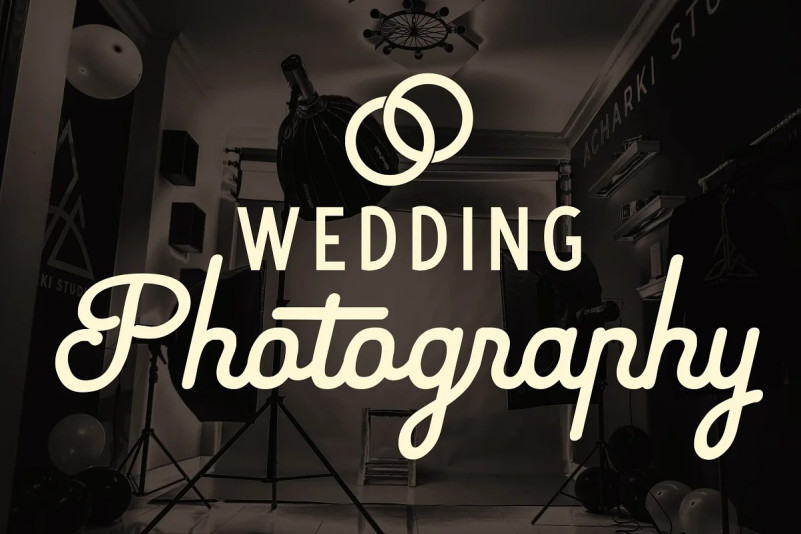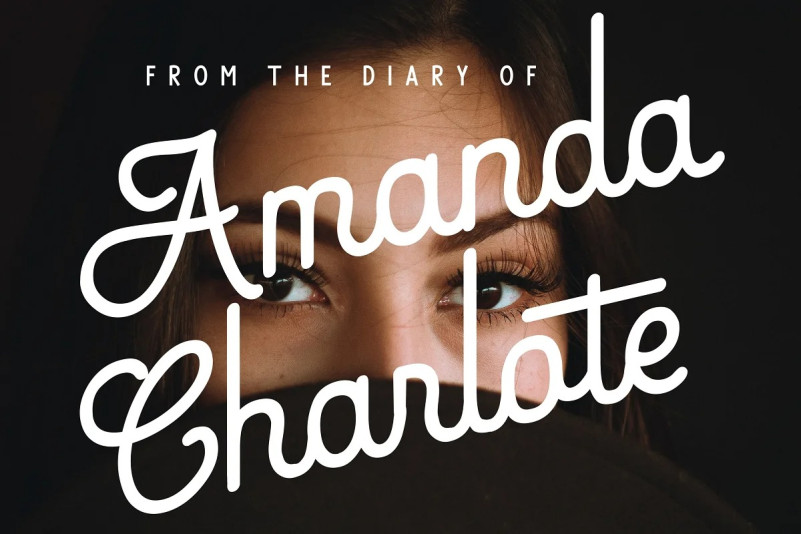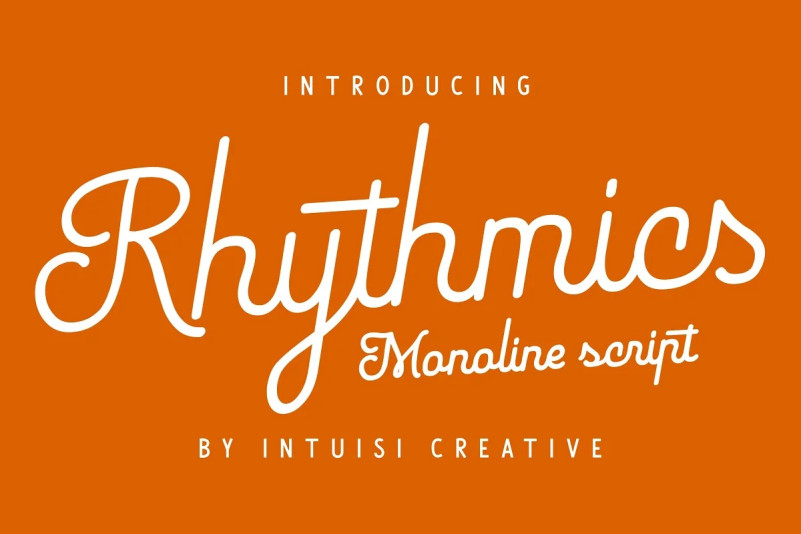
Rhythmics Font
Rhythmics Script Font is a smooth and simple monoline script font, but intricately worked on. suitable for retro or modern style designs with a minimalist and elegant impression. with PUA encoded so all characters are easily accessible. The supporting font is the Satisfactory font.